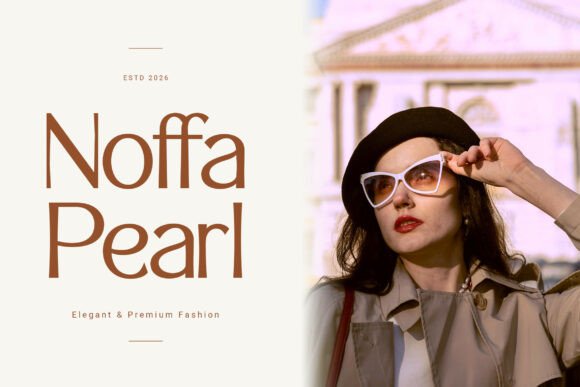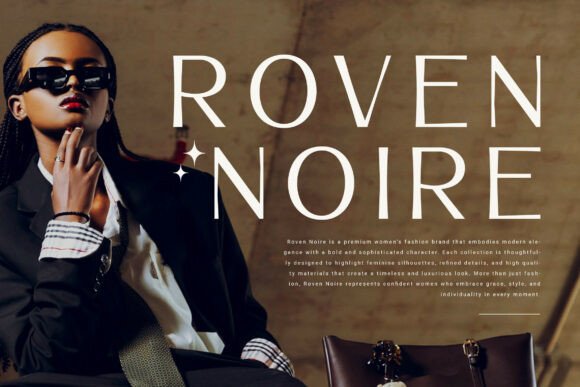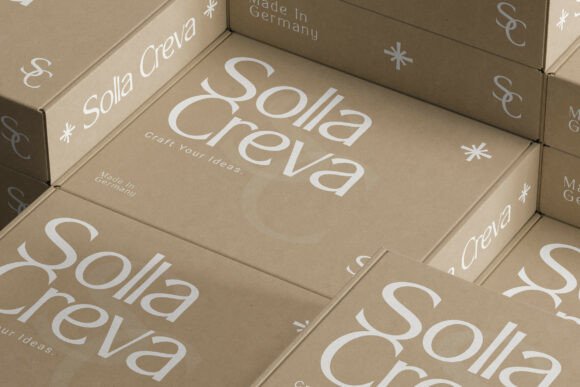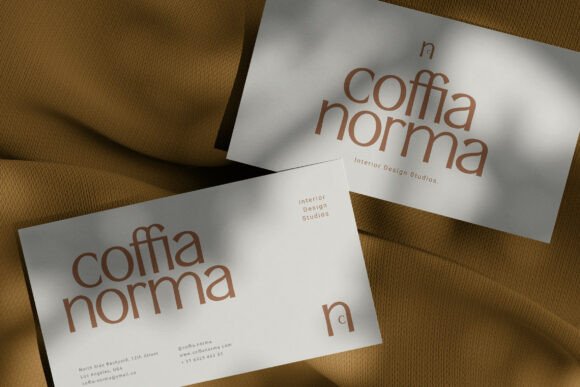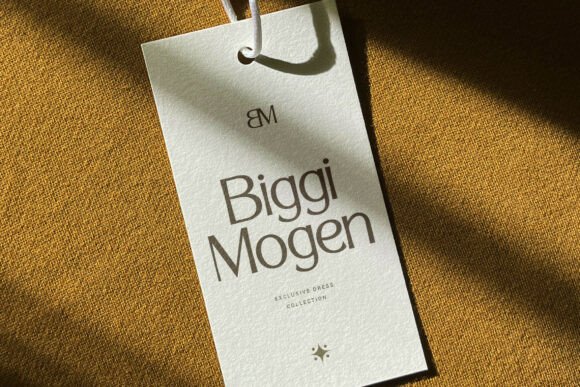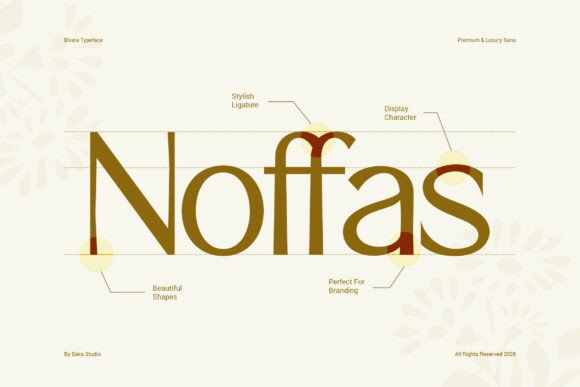
Introducing ELVERA FONT: The Epitome of Luxury and Sophistication
In the realm of typography, few fonts manage to convey the essence of luxury, elegance, and modern sophistication as effectively as ELVERA. This premium sans serif typeface has been meticulously crafted to strike a refined balance between minimalism and high-end style, making it an indispensable tool for designers aiming to create a strong, yet understated typographic identity.
Design Philosophy and Characteristics
ELVERA’s design is rooted in clean geometric structures and graceful proportions, which together deliver a timeless visual presence that feels both contemporary and exclusive. Its sleek letterforms are not just aesthetically pleasing but also highly legible, ensuring that the message is conveyed with clarity and confidence. This font is a perfect blend of modern sophistication and classic elegance, making it versatile enough to be used across a wide range of commercial applications.
Inspirations and Aesthetic Appeal
The creation of ELVERA was inspired by the high standards of luxury editorial design, the sleek lines of modern architecture, and the elevated culture of branding. Each character in ELVERA embodies clarity, confidence, and prestige, making it an ideal choice for projects that demand a high level of typographic excellence. Whether it’s for luxury logotypes, fashion branding, or premium packaging design, ELVERA brings a level of sophistication that is hard to match.
Versatility and Application
One of the standout features of ELVERA is its versatility. This typeface performs beautifully across various commercial applications, including:
- Luxury Logo Type: Create a lasting impression with a logotype that exudes elegance and sophistication.
- Fashion & Beauty Branding: Elevate your brand’s visual identity with a typography that speaks of luxury and style.
- Premium Packaging Design: Stand out in the market with packaging that boasts a refined and high-end aesthetic.
- Editorial & Magazine Headlines: Capture the attention of your readers with headlines that are both stylish and legible.
- Brand Identity Systems: Develop a cohesive brand image with a typeface that communicates your brand’s values and prestige.
- Mockups & Visual Campaigns: Enhance your visual campaigns with a typography that adds a touch of luxury and professionalism.
- Commercial: Ideal for any commercial project that requires a sophisticated and modern typeface.
Why Choose ELVERA?
Choosing ELVERA for your design project means selecting a typeface that offers more than just aesthetic appeal. It means opting for a font that:
- Combines minimalism with elegance to create a timeless look.
- Is highly legible and versatile, suitable for a wide range of applications.
- Can help you stand out in competitive markets such as fashion, luxury goods, and premium services.
- Is a cost-effective solution for achieving high-end design without the need for extensive custom typography work.
ELVERA is not just a typeface; it’s a statement of luxury, sophistication, and modern elegance. Whether you’re a designer looking to elevate your brand’s visual identity or a craftsperson aiming to add a touch of high-end style to your projects, ELVERA is the perfect choice. Its ability to convey prestige, clarity, and confidence makes it an invaluable asset in the world of design. With ELVERA, you’re not just choosing a font; you’re adopting a typographic identity that speaks of excellence and refinement.